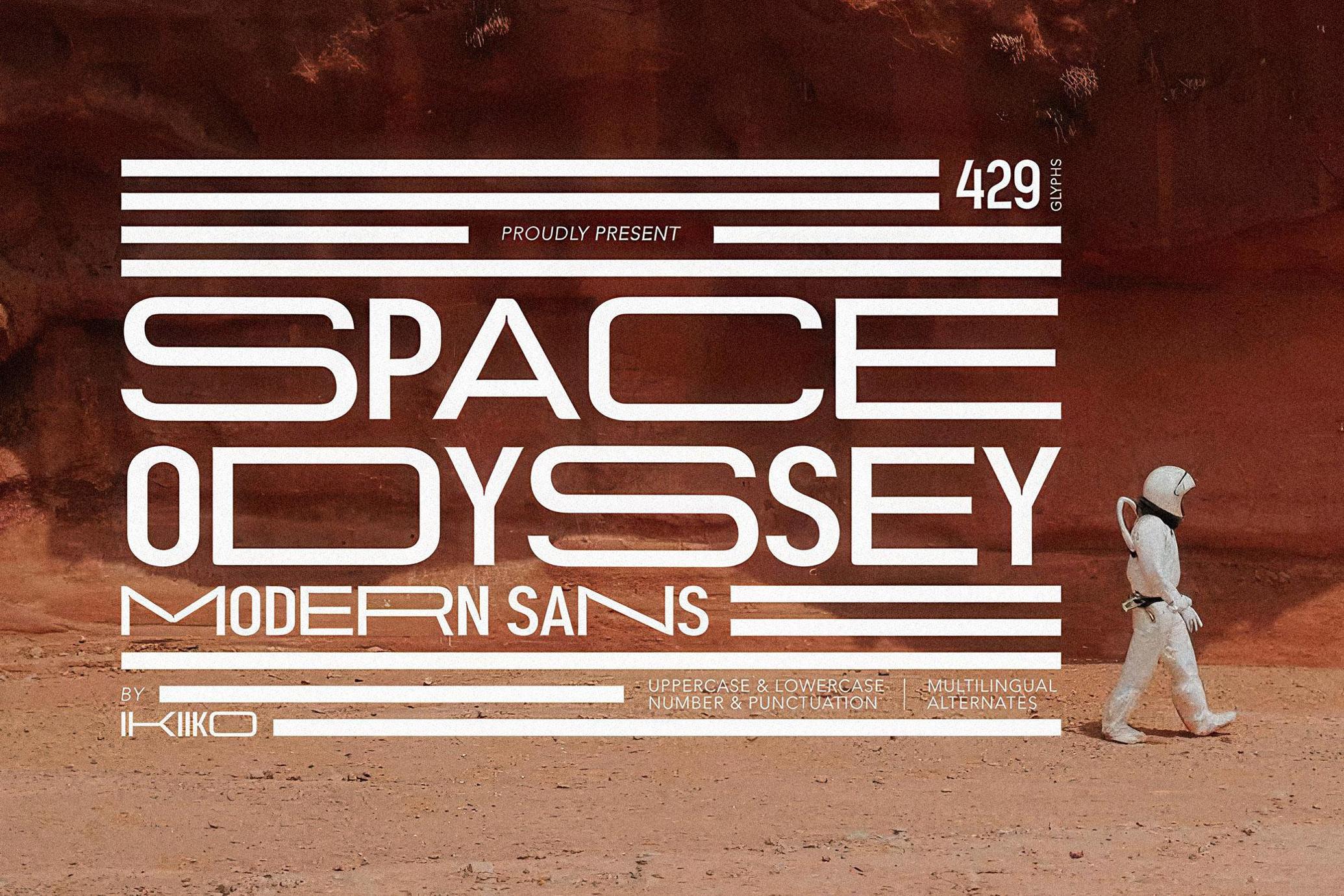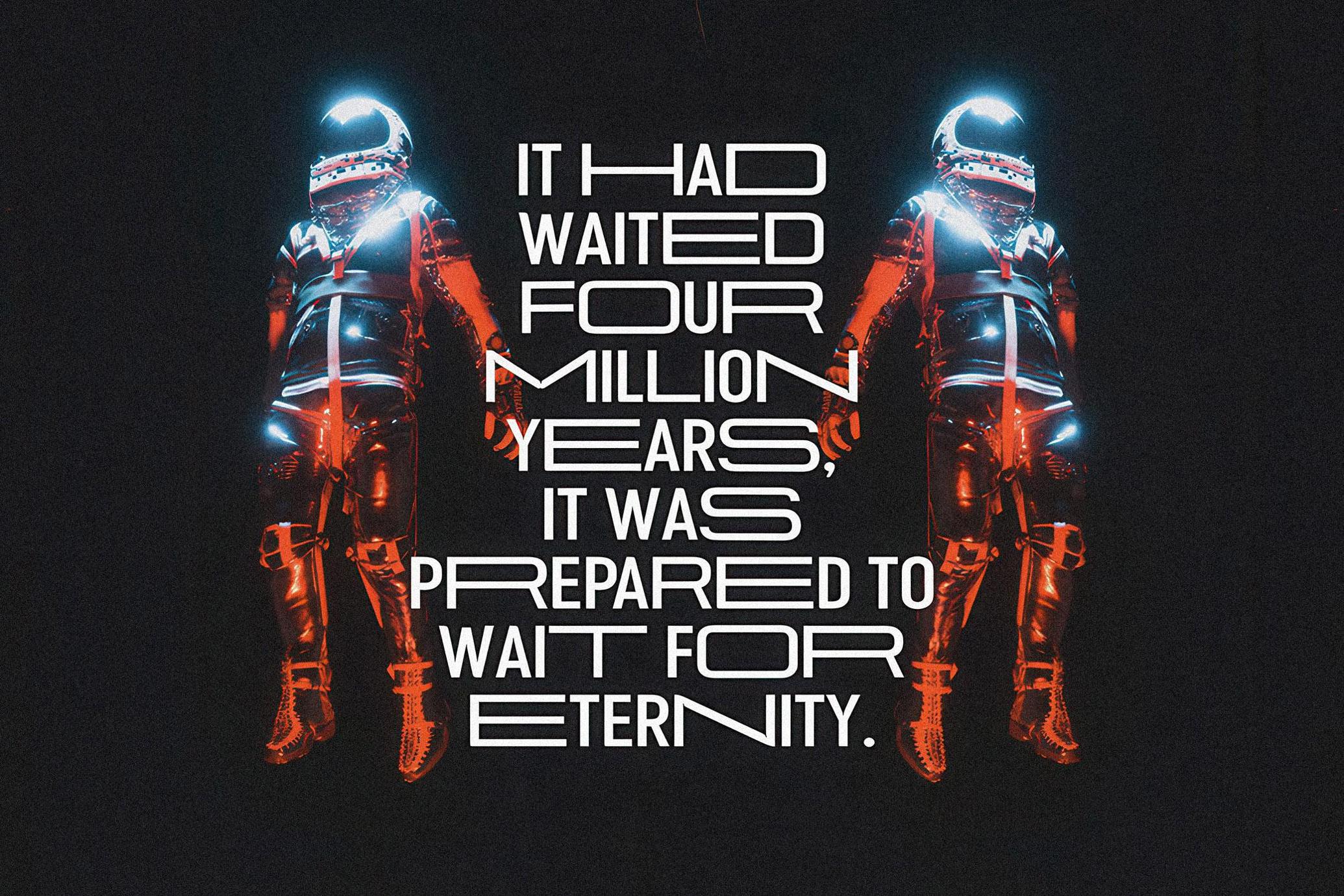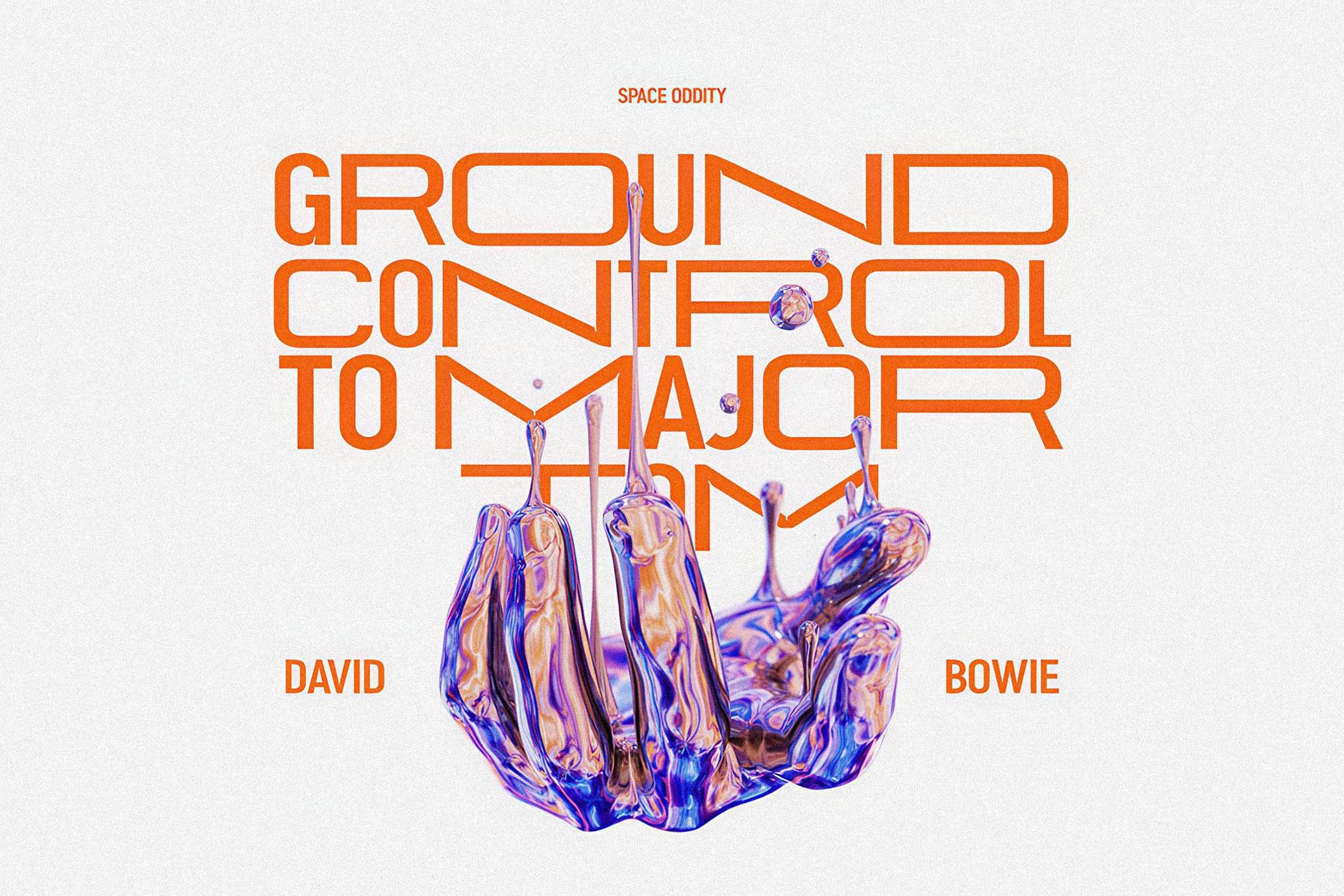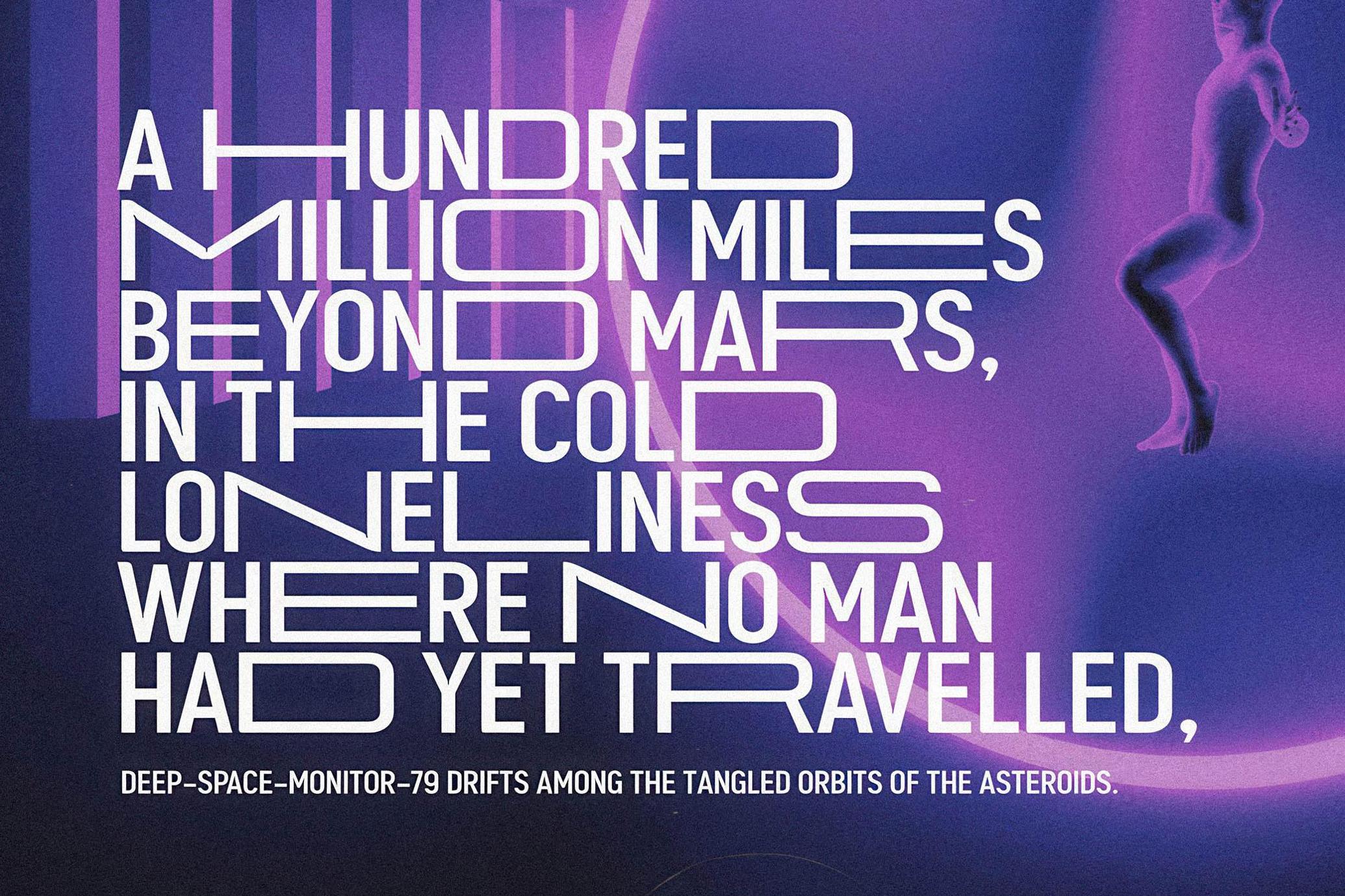
Space Odyssey - Sci-Fi Font
Space Odyssey is a display type with a character of semi-condensed sans serif combined with stretched font characters . This letter has a choice of stretch shapes to play with that. This typeface is perfect for an logo, branding, layout magazine, fashion stuff, quotes, or simply as a stylish text overlay to any background image.
• Number & Punctuation
• Alternates